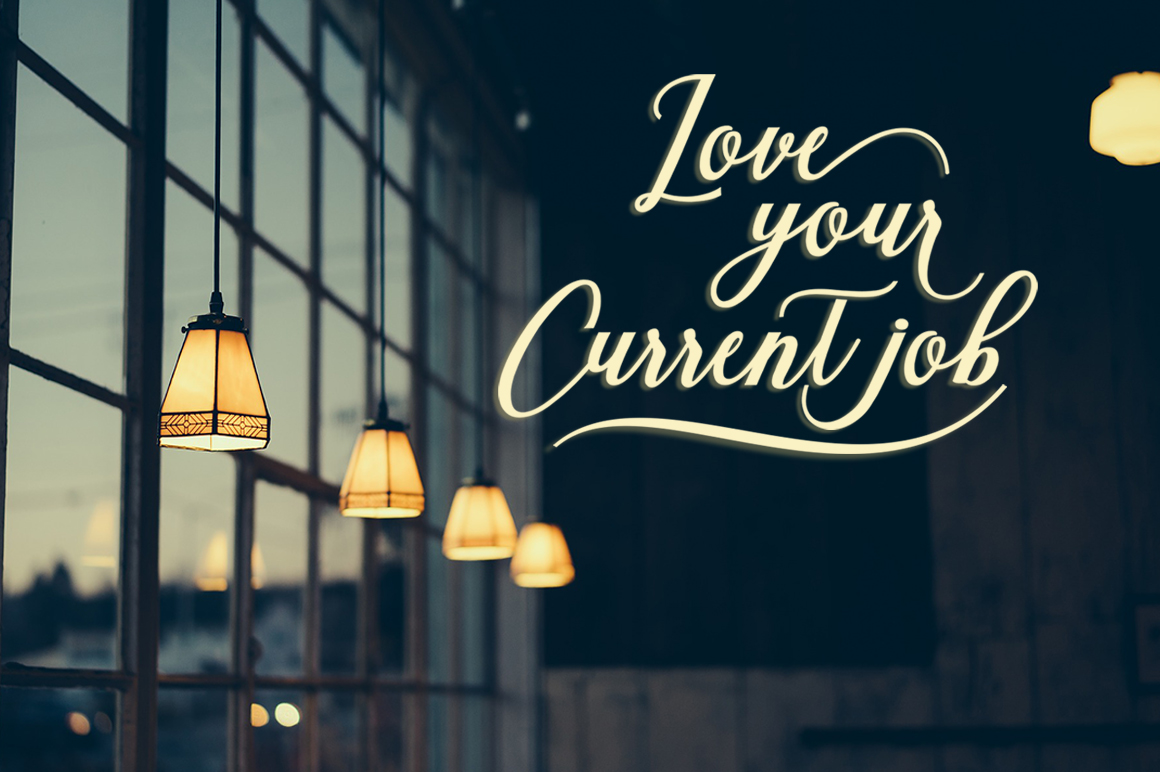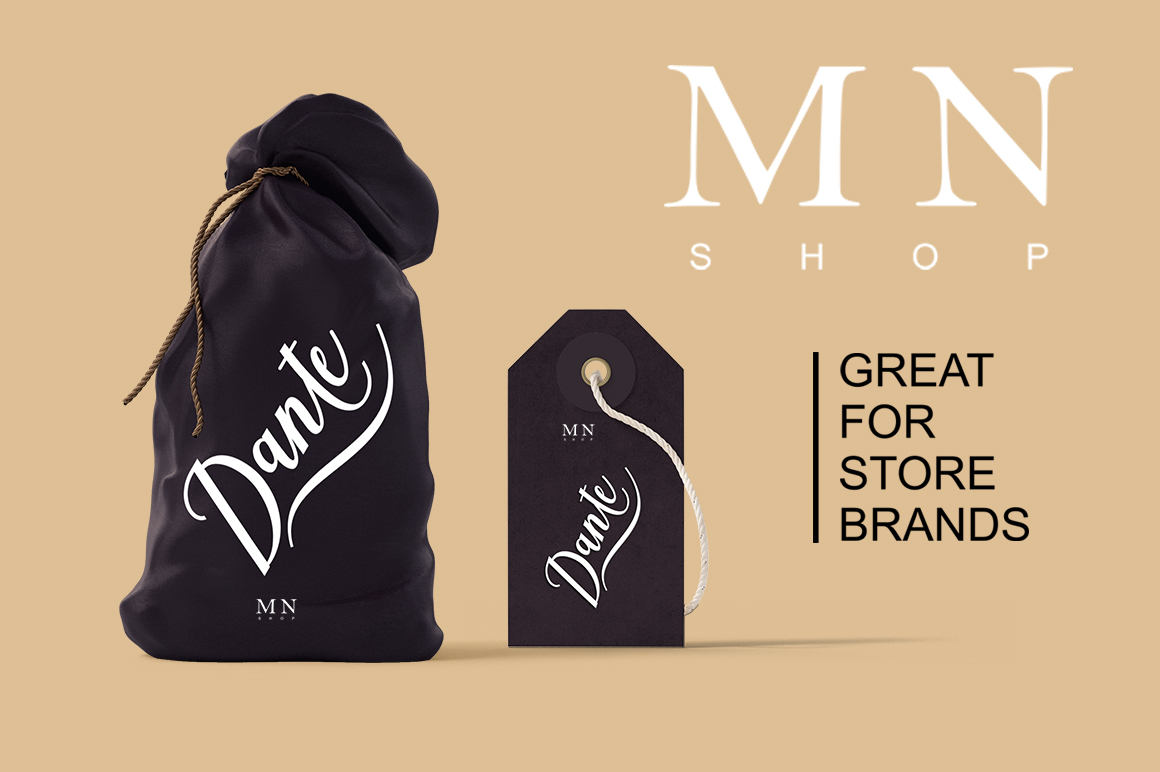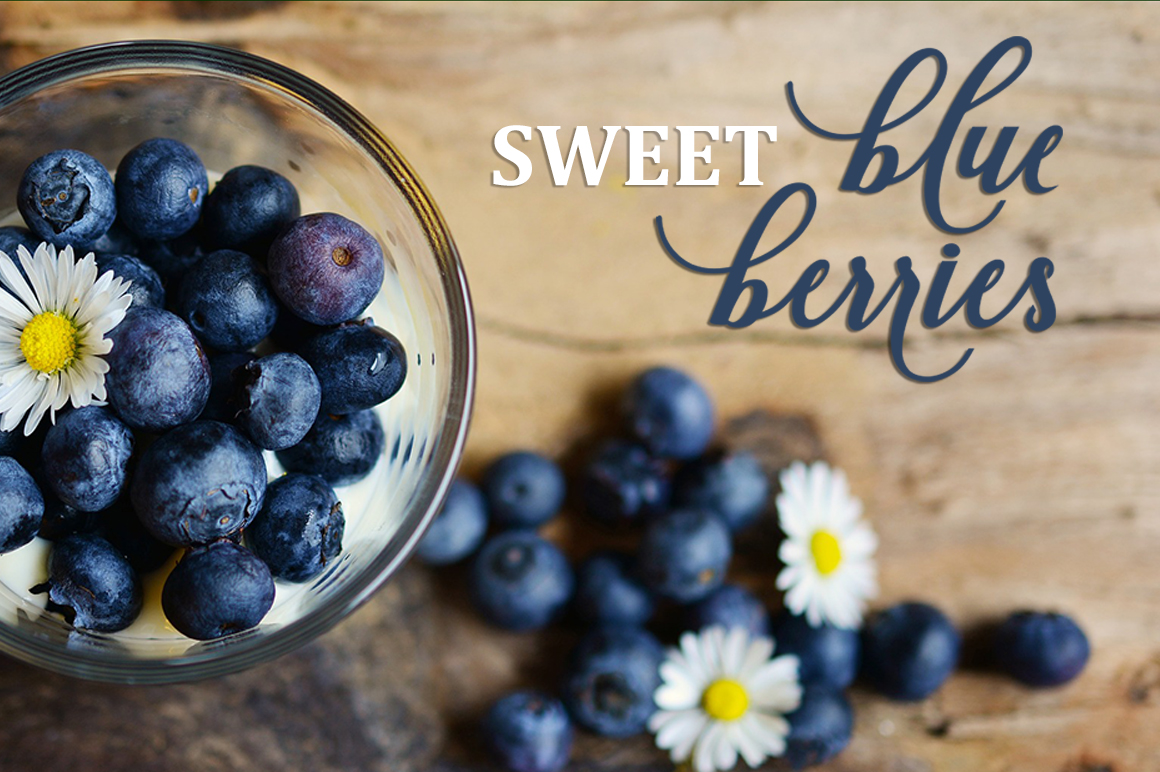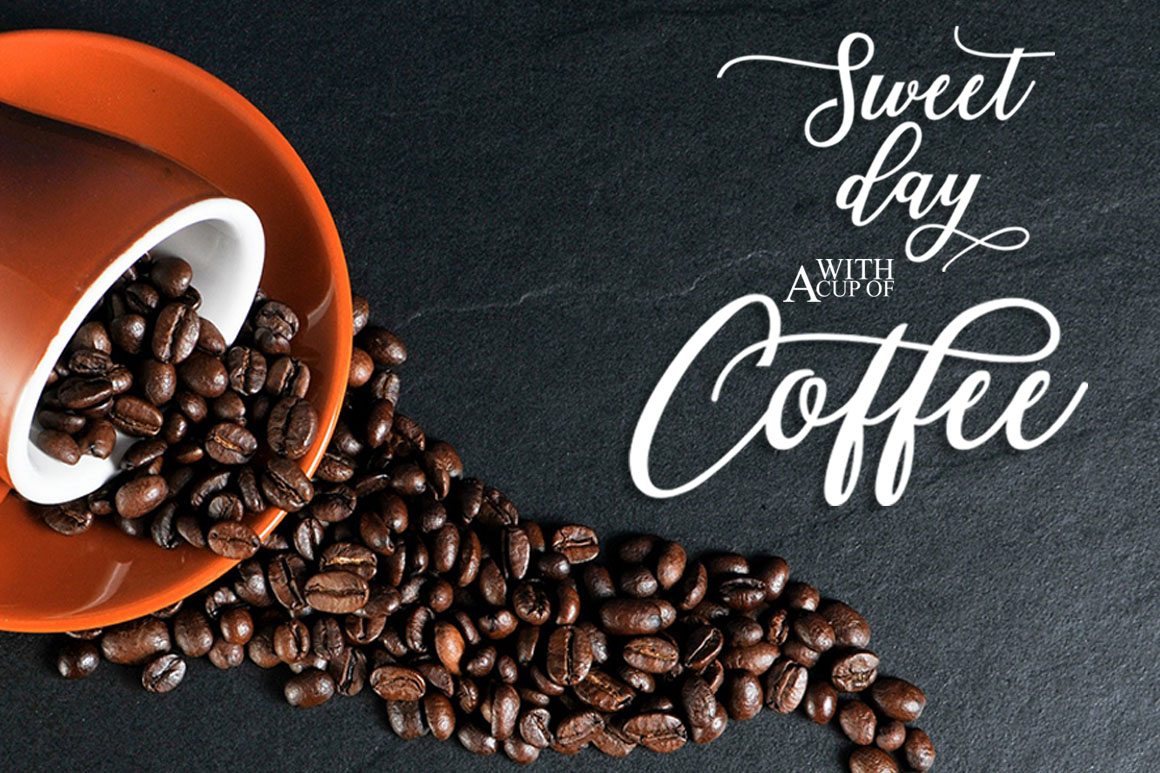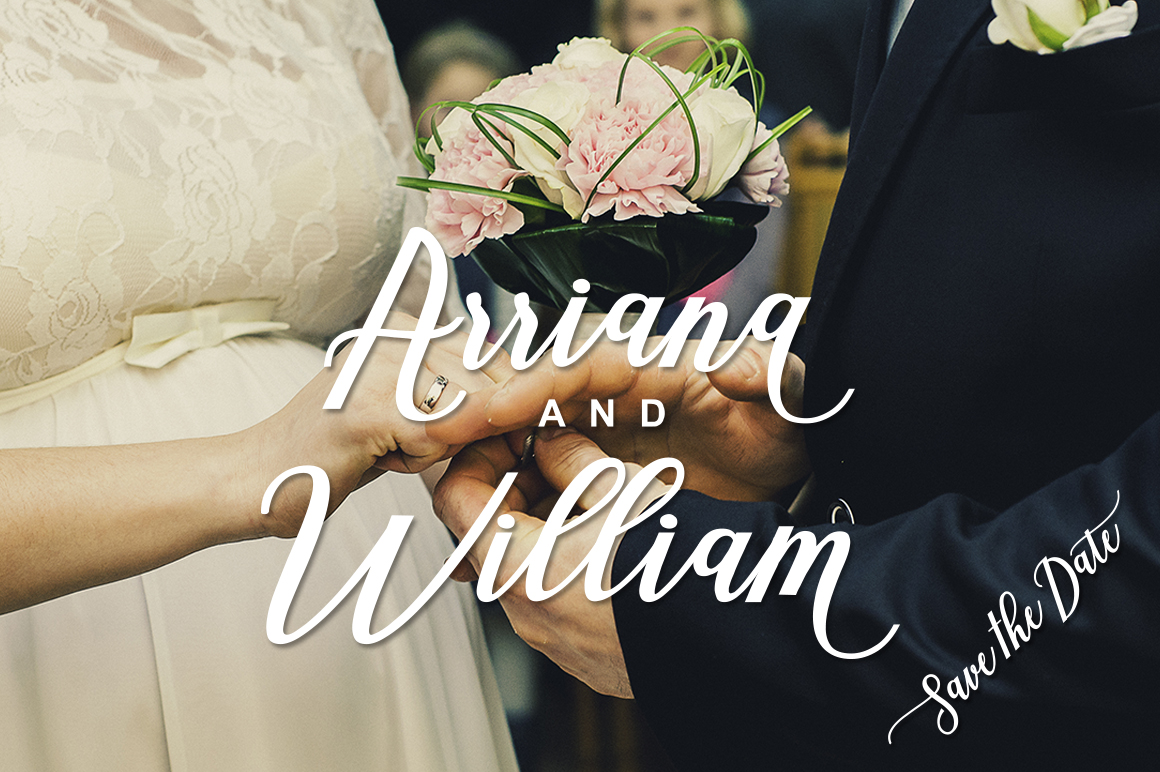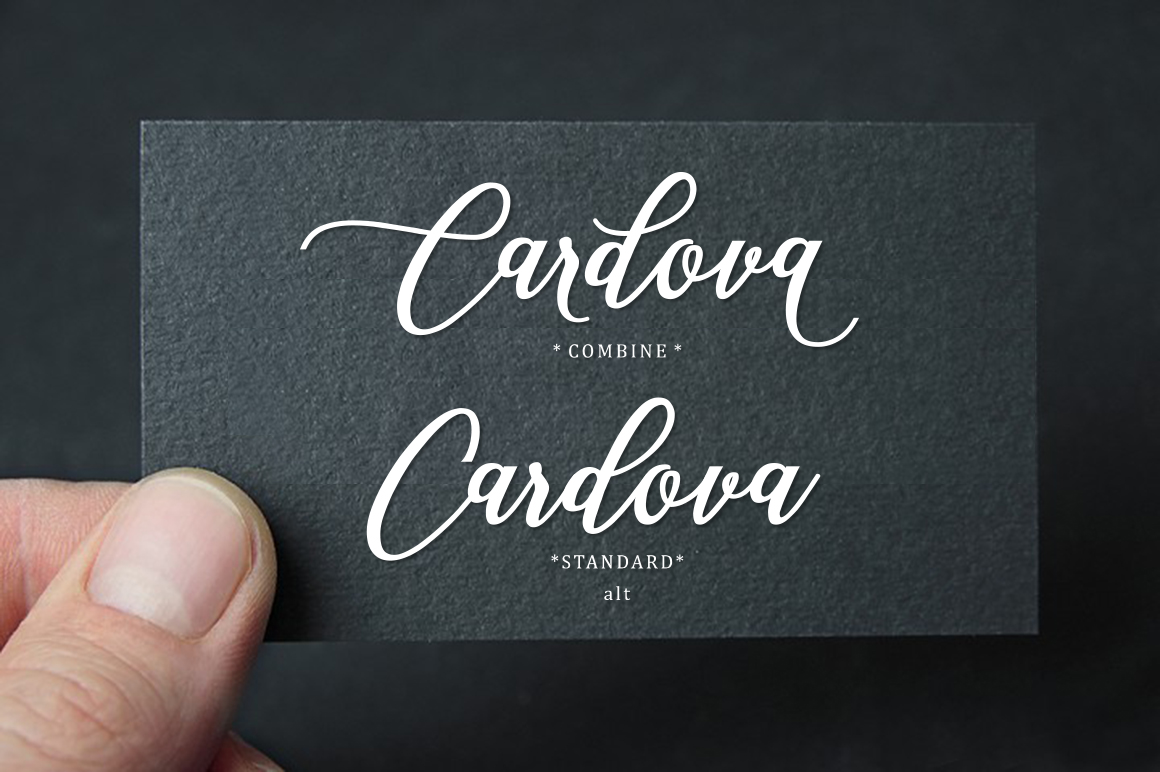
Ganteng Script Font: Elevate Your Designs with Elegance and Sophistication
In the world of typography, a font can make or break a design. For designers and crafters looking to add a touch of elegance and sophistication to their projects, the Ganteng Script Font is an exceptional choice. This stunning handwritten font is packed with loads of extra swashes, making it an ultimate tool in your design arsenal.
What Makes Ganteng Script Font Stand Out?
The Ganteng Script Font boasts bold, curvy letters that look great on many different types of designs. Its versatility makes it perfect for various applications, including web design, print, and cutting projects. Whether you’re creating a logo, a poster, or a digital graphic, this font is sure to make your design stand out.
Key Features of Ganteng Script Font
- Handwritten Style: The Ganteng Script Font features a beautiful, handwritten style that adds a personal touch to any design.
- Extra Swashes: With loads of extra swashes, you can add more flair to your designs and make them more visually appealing.
- Bold and Curvy Letters: The font’s bold, curvy letters are perfect for creating eye-catching designs that demand attention.
Use Cases for Ganteng Script Font
The Ganteng Script Font is an incredibly versatile font that can be used in a wide range of design projects, including:
- Logo Design: Create a stunning logo for your business or brand with the Ganteng Script Font.
- Poster Design: Design eye-catching posters for events, promotions, or advertising campaigns.
- Web Design: Use the Ganteng Script Font to add a touch of elegance to your website’s typography.
- Print Design: Create beautiful print materials, such as brochures, flyers, and business cards.
- Cutting Projects: Use the Ganteng Script Font for cutting projects, such as vinyl signs, stickers, and decals.
Tips for Getting the Most Out of Ganteng Script Font
To get the most out of the Ganteng Script Font, here are some tips:
- Experiment with Swashes: Don’t be afraid to experiment with the font’s extra swashes to add more flair to your designs.
- Mix and Match: Combine the Ganteng Script Font with other fonts to create a unique and visually appealing typography.
- Play with Colors: Use different colors to highlight the font’s bold, curvy letters and add more depth to your designs.
In conclusion, the Ganteng Script Font is an exceptional choice for designers and crafters looking to add a touch of elegance and sophistication to their projects. With its bold, curvy letters, extra swashes, and versatility, this font is sure to elevate your designs and make them stand out. Whether you’re working on a web design, print project, or cutting project, the Ganteng Script Font is an ultimate tool that you won’t want to miss.